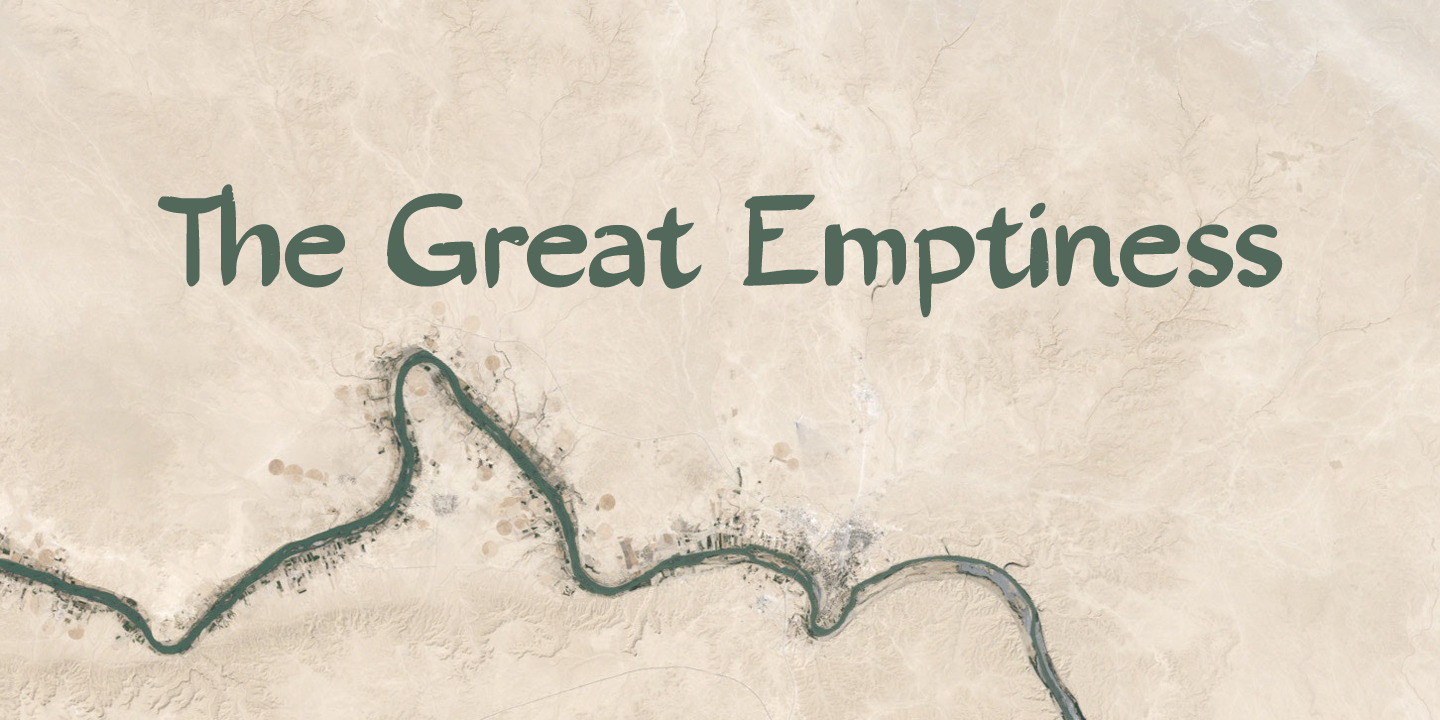
Tombouctou Font is perfect for African cultural heritage projects, Saharan adventure tourism, historical manuscript reproductions, cultural exchange programs, African art exhibitions, desert expedition branding, traditional storytelling materials, cultural diversity campaigns, heritage preservation initiatives, and multicultural educational resources.
What makes Tombouctou Font so exciting is its cultural richness that embodies the legendary history and scholarly traditions of ancient Timbuktu, the crossroads of African civilization and learning. This typeface features distinctive letterforms with cultural authenticity and historical character that evokes the intellectual grandeur and trading heritage of this legendary city. The font's dignified and culturally-aware character communicates respect for African heritage and historical significance, making it perfect for organizations seeking to honor African culture and appeal to audiences who value cultural diversity and the rich intellectual traditions of African civilization.
Tombouctou Font family includes Regular, Bold, Light, and Historical weights, along with cultural alternates and heritage variations. The family also features special character sets including African symbols, cultural motifs, and traditional decorative elements that enhance the font's connection to African heritage and historical scholarship themes.
The Tombouctou Font Free Download package offers designers access to culturally authentic typography that brings African heritage dignity to any cultural project. This respectful typeface combines traditional design principles with contemporary functionality, creating a powerful visual tool for cultural brands and heritage-focused organizations. Whether you're developing African cultural identities, designing heritage publications, or creating multicultural marketing materials, this font provides the dignified character needed to communicate cultural respect and historical significance.
Tombouctou Font supports comprehensive character sets including Latin alphabets, numbers, punctuation marks, and special cultural symbols. The font's culturally sensitive spacing reflects traditional manuscript traditions while ensuring excellent readability across all heritage applications. Its OpenType features include contextual alternates, cultural ligatures, and heritage decorative elements that expand creative possibilities for culturally-focused design projects.
Professional designers choose Tombouctou Font for projects requiring authentic African cultural appeal and heritage scholarship aesthetics. The font excels in applications where cultural sensitivity and historical respect are essential, offering the perfect solution for organizations seeking to communicate cultural appreciation, educational value, and connection to African intellectual traditions. Its heritage character makes it ideal for museums, cultural institutions, and educational organizations.
The Tombouctou Font Free Download provides creative professionals with an exceptional opportunity to explore African cultural typography. With its culturally respectful character variations, heritage design elements, and authentic quality, this font represents outstanding value for designers, cultural organizations, and creative agencies specializing in heritage visual communications that celebrate the intellectual richness of African civilization and the enduring legacy of cultural scholarship and traditional learning.